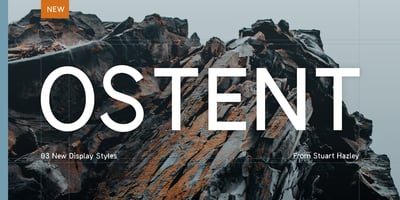
Ostent
Ostent font
Ostent Font Family was designed by Stuart Hazley and published by Stuart Hazley. Ostent contains 4 styles and family package options. Ostent is a font family which is inspired by the early Din-Type fonts. In particular, Din 1451. This is reflected in Ostents simple and uncomplicated design, which results in creating a good sense of legibility. Each of the three weights have been carefully designed to work in conjunction with one another, or individually, complimenting other typefaces. Ostent can be used across a wide range of design mediums (both print and screen).